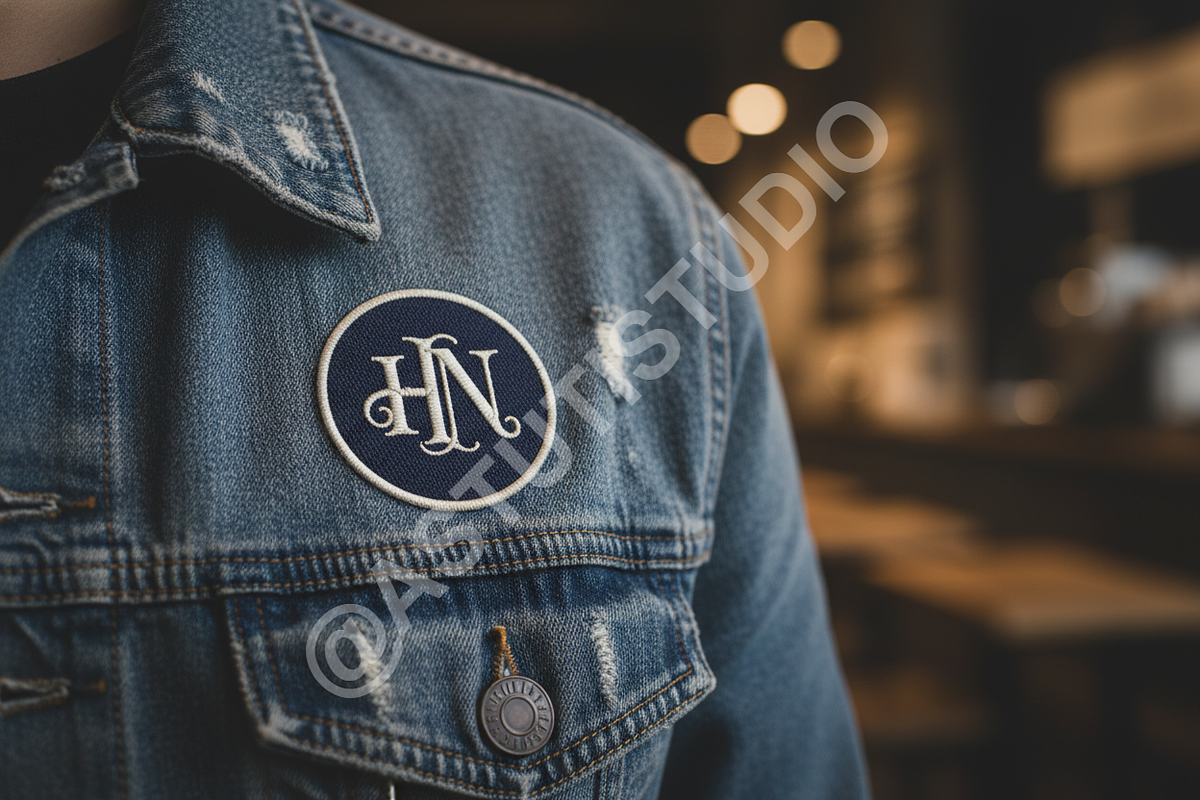
Hanoxi | A Modern Luxury Serif Typef
Hanoxi is a high-end serif typeface meticulously crafted for sophistication and timeless appeal. Drawing inspiration from high-fashion editorial aesthetics, Hanoxi balances sharp serifs with graceful curves to create a visual harmony that demands attention. It is the definitive choice for designers looking to elevate luxury branding, high-end editorial layouts, and premium social media content.
- High-contrast, elegant letterforms
- Comprehensive set of stylistic ligatures and alternates
- Full multilingual support
- Optimized for both print and digital displays